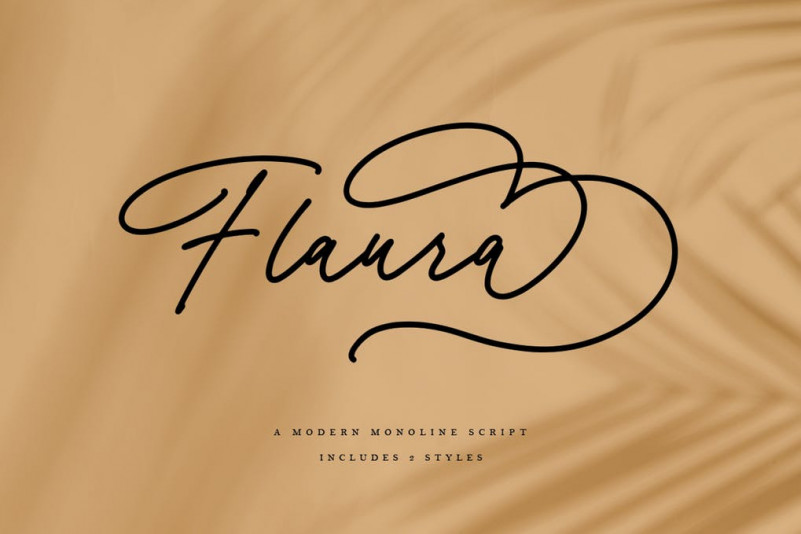
Flaura Font
Flaura Modern Monoline Script is a feminine type of Handwriting in the style of monoline. there are 2 writing styles with traditional and modern flowing characters which are ideal for making interesting messages, you can use them as types of logos, badges, packaging, titles, posters, t-shirts / clothing, greeting cards, wedding invitations and more. plus 40 ligature that is ideal for adjusting your project.